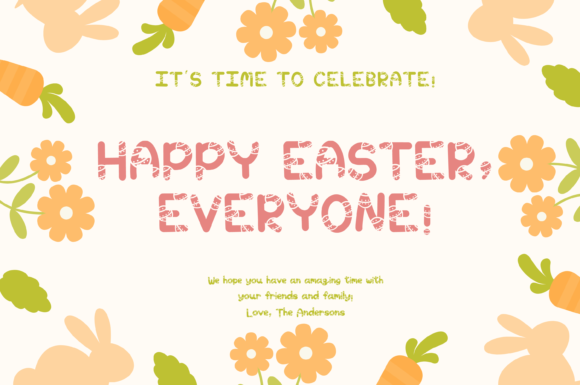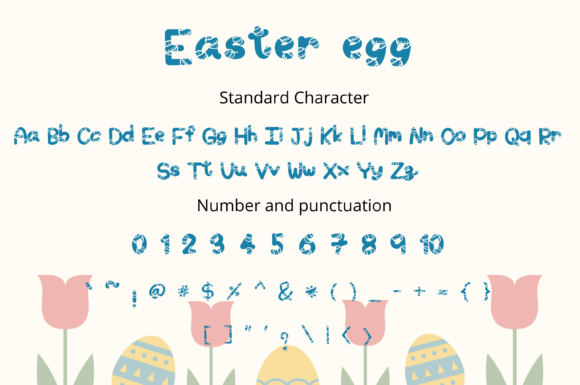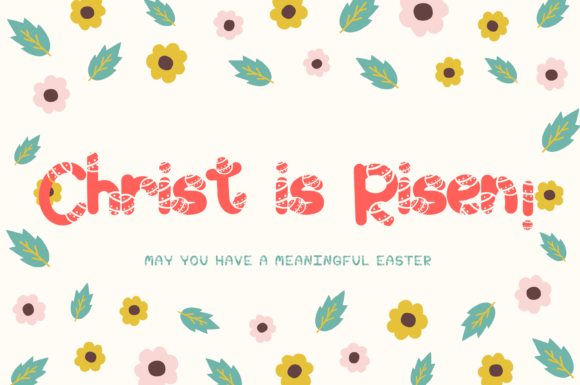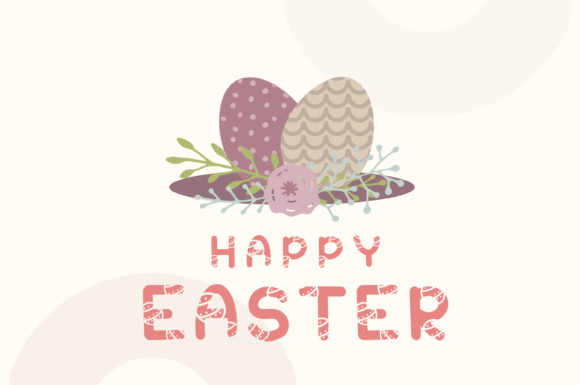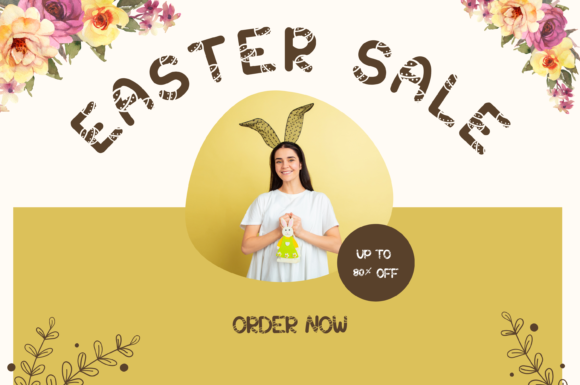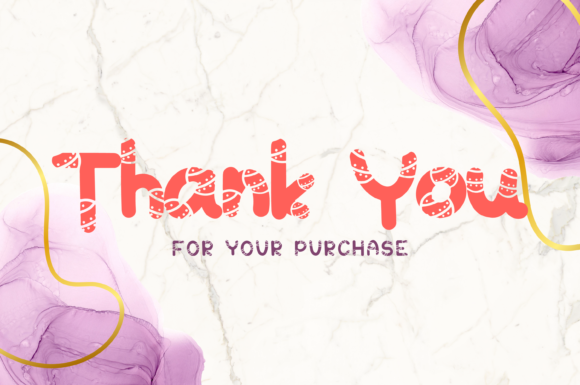
Adding a Touch of Whimsy to Your Designs
Have you ever been working on a project, and suddenly, you have a burst of inspiration? You see an idea in your mind’s eye, and you can’t wait to bring it to life. For designers, those moments are what make the creative process so magical. It’s a chance to experiment, take risks, and try new things.
One way to add a touch of whimsy to your designs is with the Easter Egg Font. This festive, decorative font is perfect for adding a playful touch to your projects. Whether you’re creating a holiday card, a children’s book, or a social media post, the Easter Egg Font can help make your design stand out. Its versatility makes it a valuable addition to any designer’s toolkit.
Easter Egg Font Key Features
- Font Family: Easter Egg Font is a unique, hand-drawn font designed to resemble Easter eggs. It’s perfect for adding a playful touch to your designs.
- Character Set: The font includes a wide range of characters, including uppercase and lowercase letters, numbers, and punctuation marks.
- Unique Characteristics: The font features intricate, swirling designs that resemble Easter eggs, making it perfect for Easter-themed designs, spring-inspired projects, and more.
Easter Egg Font Review
I recently had the chance to work with the Easter Egg Font, and I must say, it’s a font that brings a smile to your face. ✨ The playful, whimsical feel of this font is perfect for adding a touch of fun to your designs. It’s great for creating engaging social media graphics, advertisements, or even branding for a kids’ product.
Here are some of the things I love about Easter Egg Font:
- Its versatility – it works well for a wide range of design projects, from digital to print.
- Its uniqueness – it’s not a commonly used font, so it’s a great way to stand out from the crowd.
- Its readability – the font is clear and easy to read, even at smaller sizes.
However, there are a few limitations to keep in mind:
- ⚠️ It may not be the best choice for formal or professional designs, as it can come across as too playful.
- ⚠️ It may not be suitable for designs that require a lot of text, as the font can be a bit too ornate.
Overall, I’d give the Easter Egg Font 4 out of 5 stars. It’s a fun, creative font that’s perfect for adding a touch of whimsy to your designs. With its versatility and uniqueness, it’s a great choice for designers who want to stand out from the crowd.
Common Use Cases and Tips
The Easter Egg Font is perfect for creating playful and whimsical designs, such as:
– Easter-themed graphics
– Children’s party invitations
– Social media posts
– Marketing materials
Alternatives to Easter Egg Font
Great Vibes is a modern, elegant font that is ideal for use in headings, titles, and other display text. It’s perfect for designers who want to add a touch of sophistication to their designs. Compared to Easter Egg Font, Great Vibes has a more refined and polished look, making it suitable for a wider range of applications.
Lobster Font
Lobster is a fun, cursive font that is great for adding a playful touch to designs. It’s perfect for use in titles, headings, and other display text where a more casual, handwritten feel is desired. Compared to Easter Egg Font, Lobster has a more relaxed and casual vibe, making it suitable for designs that require a more laid-back tone.